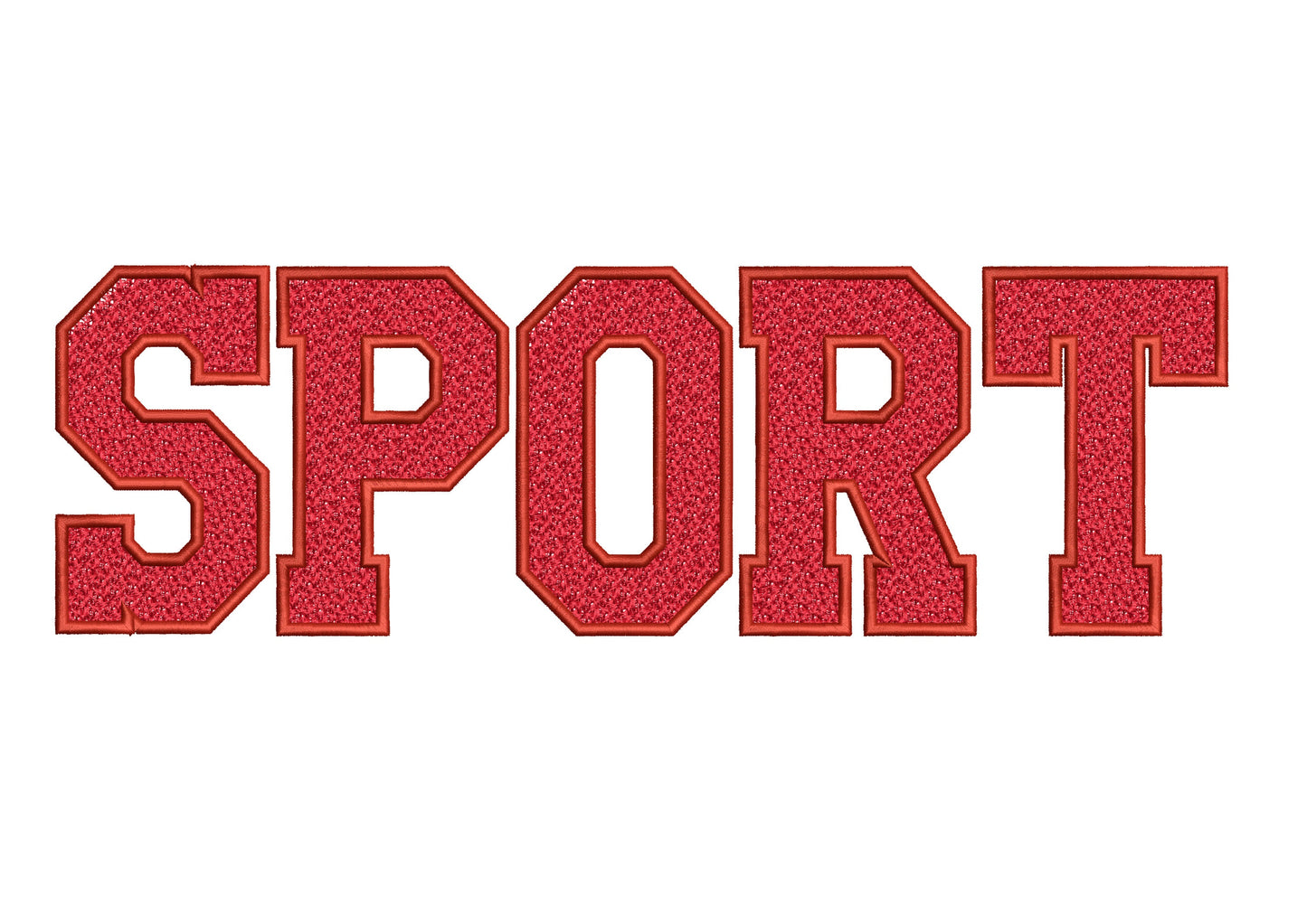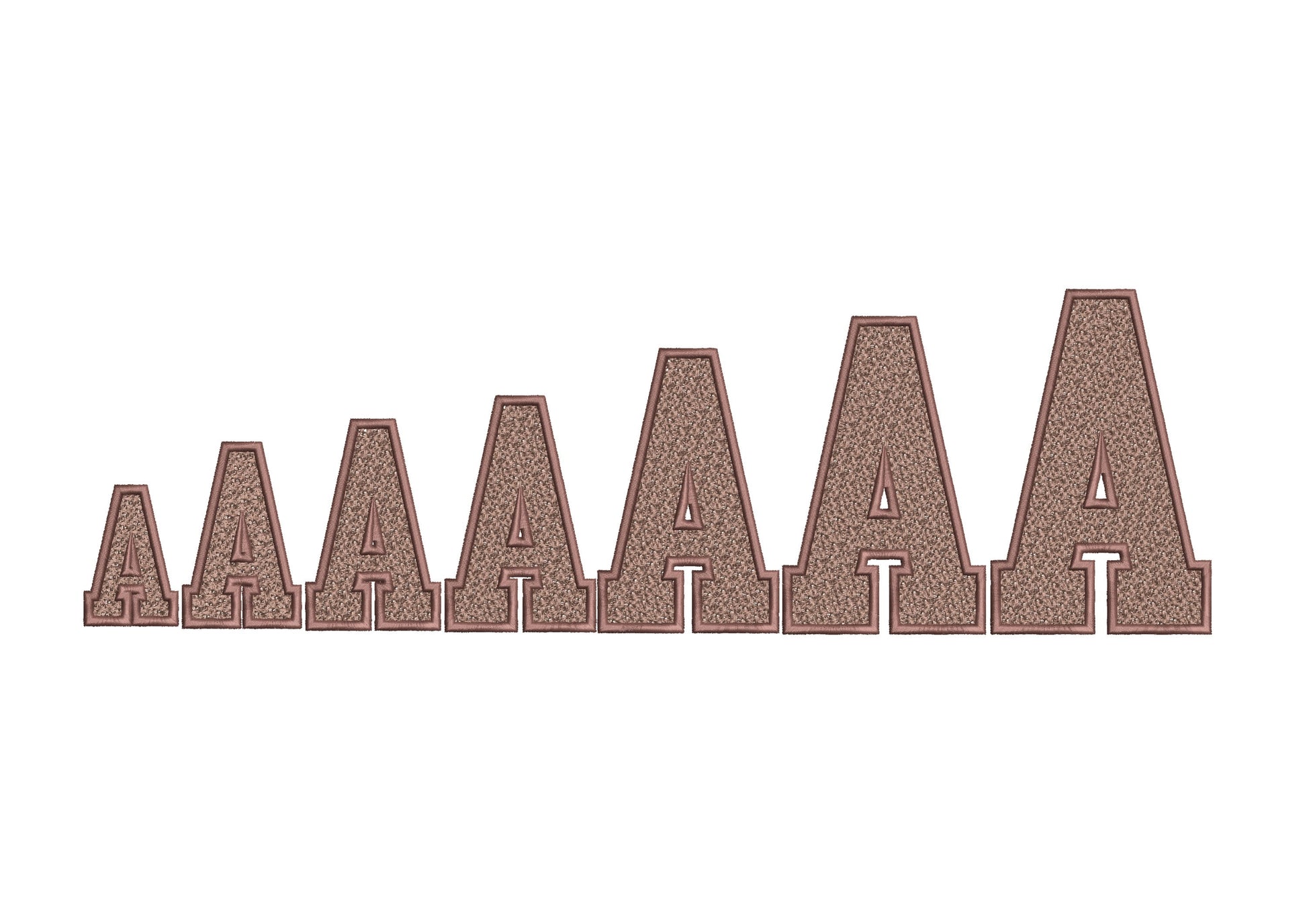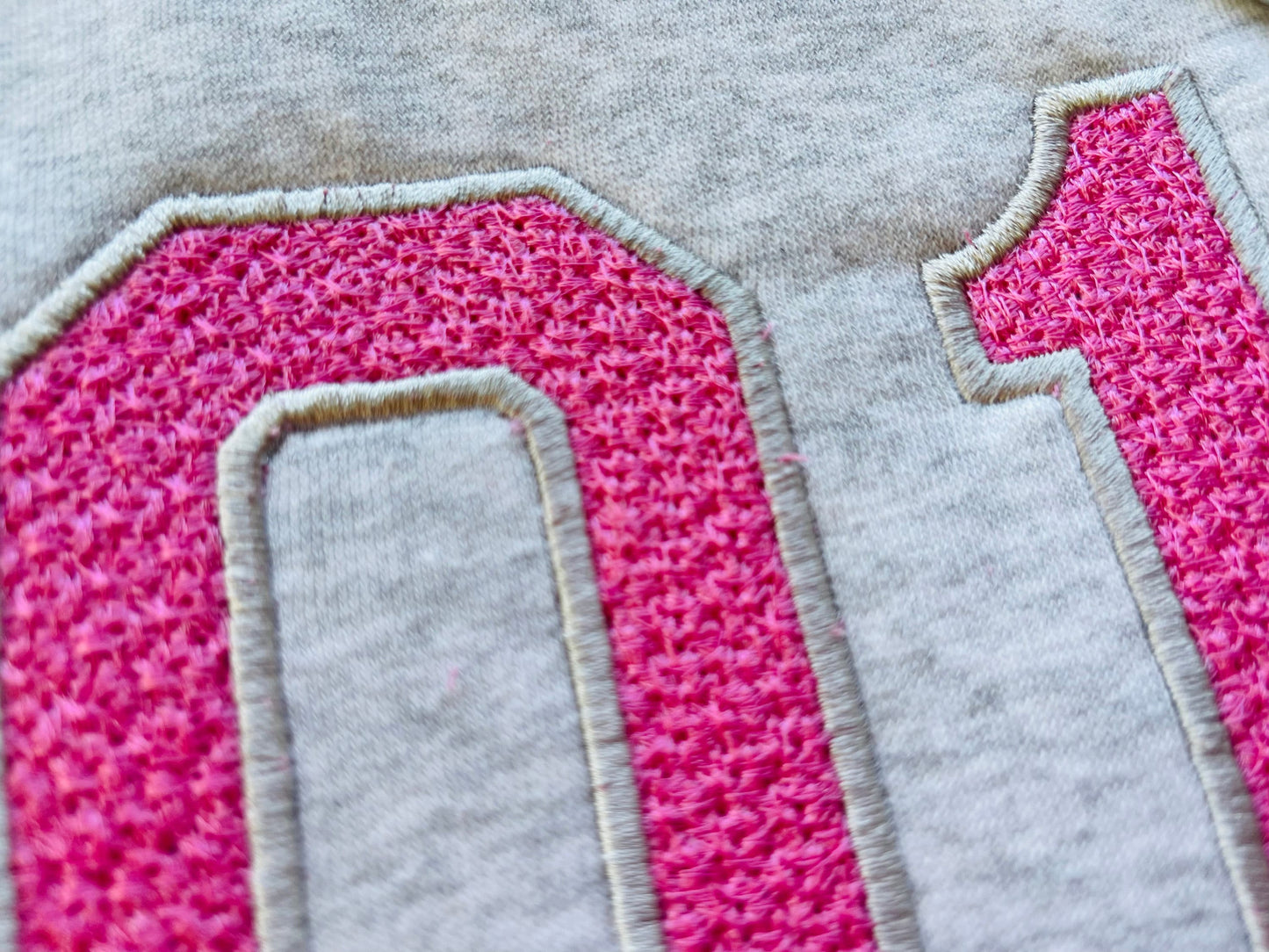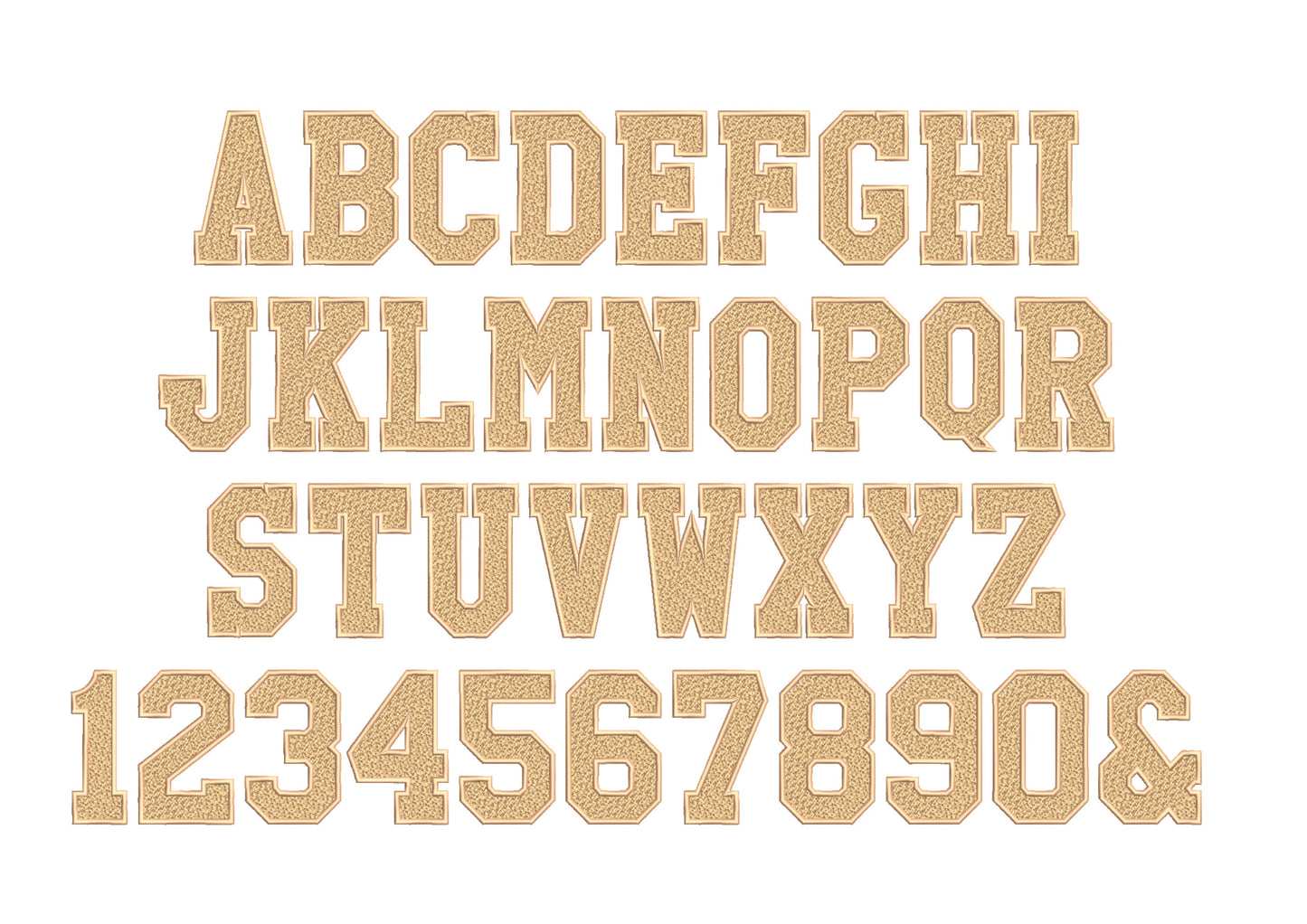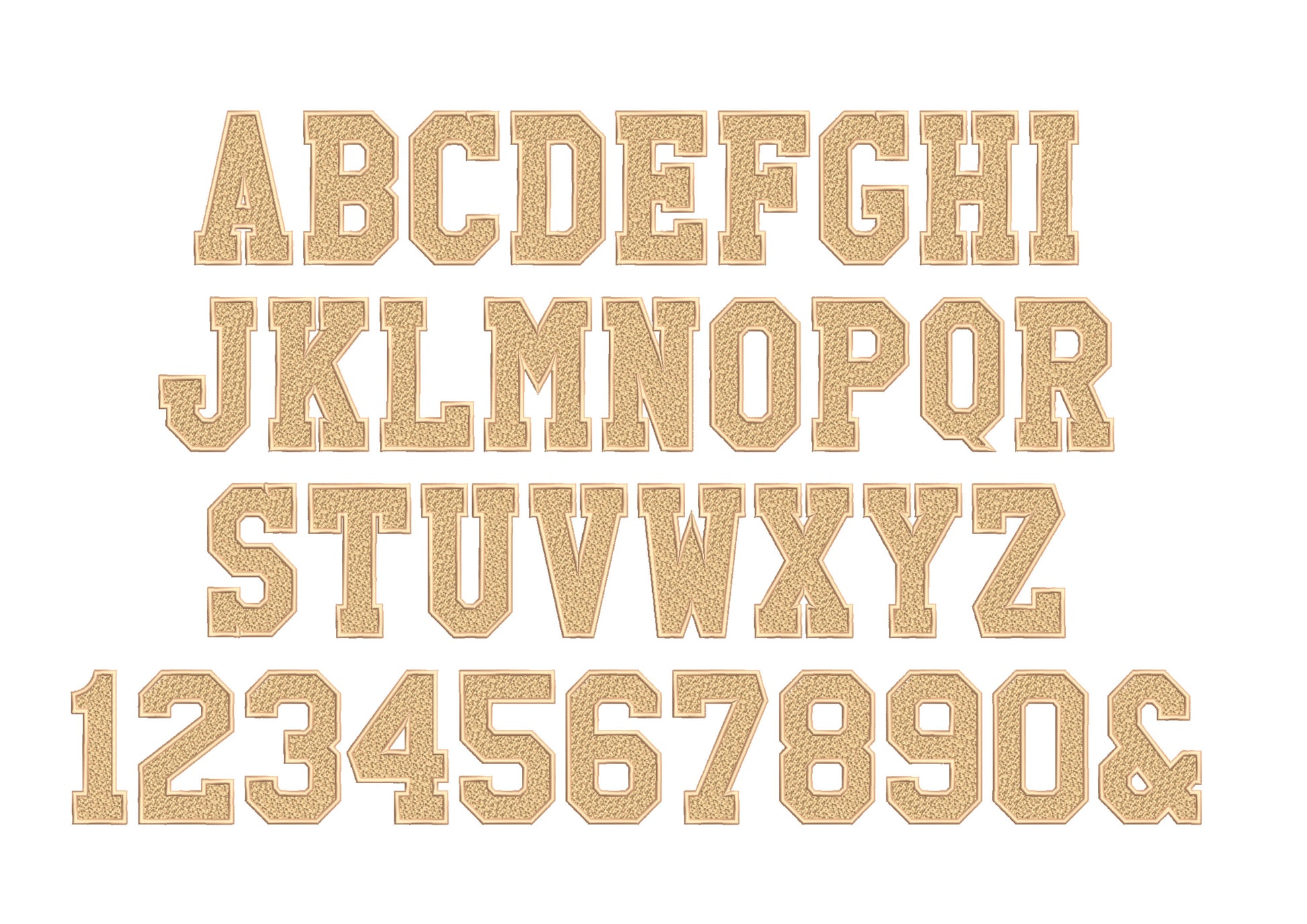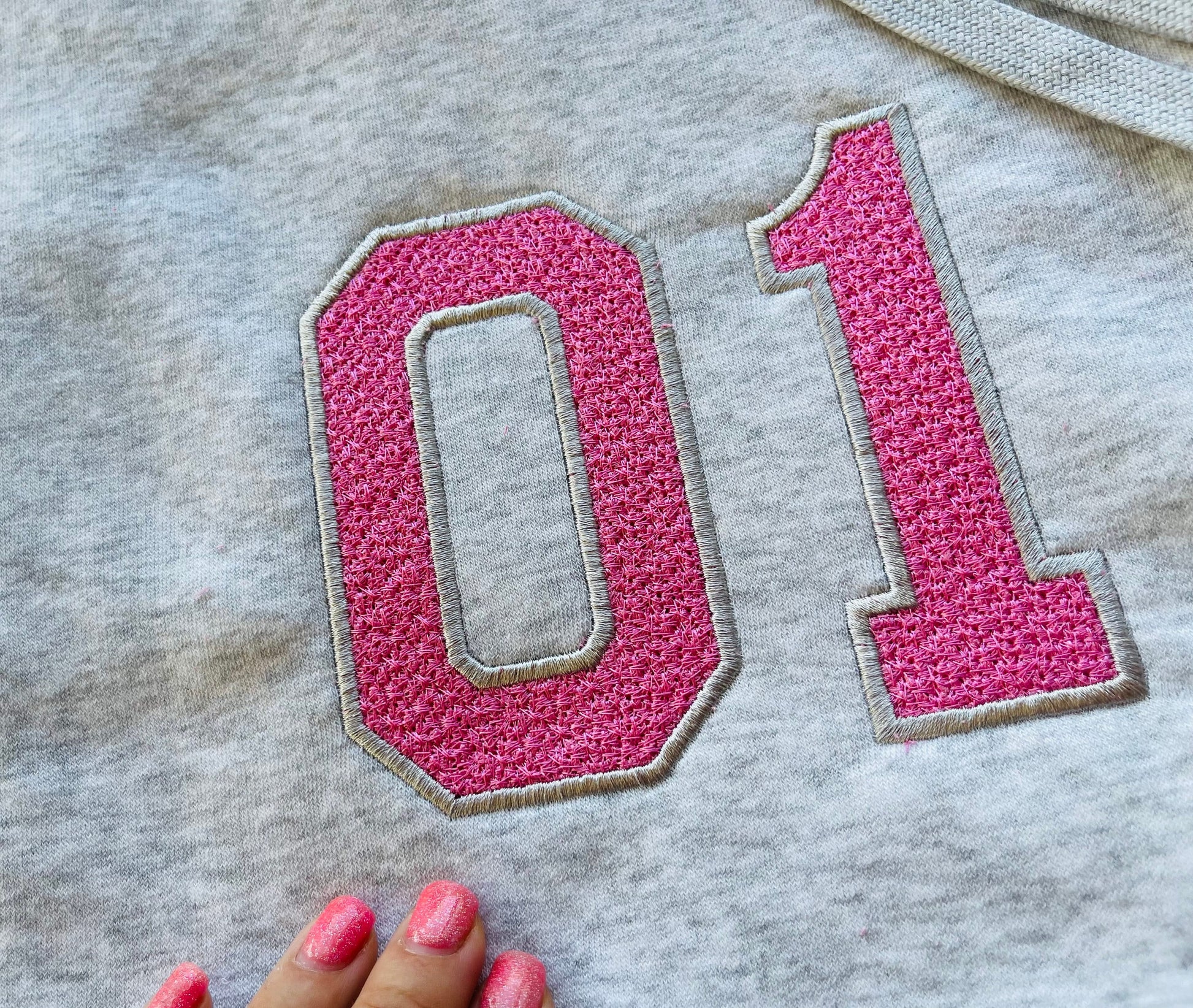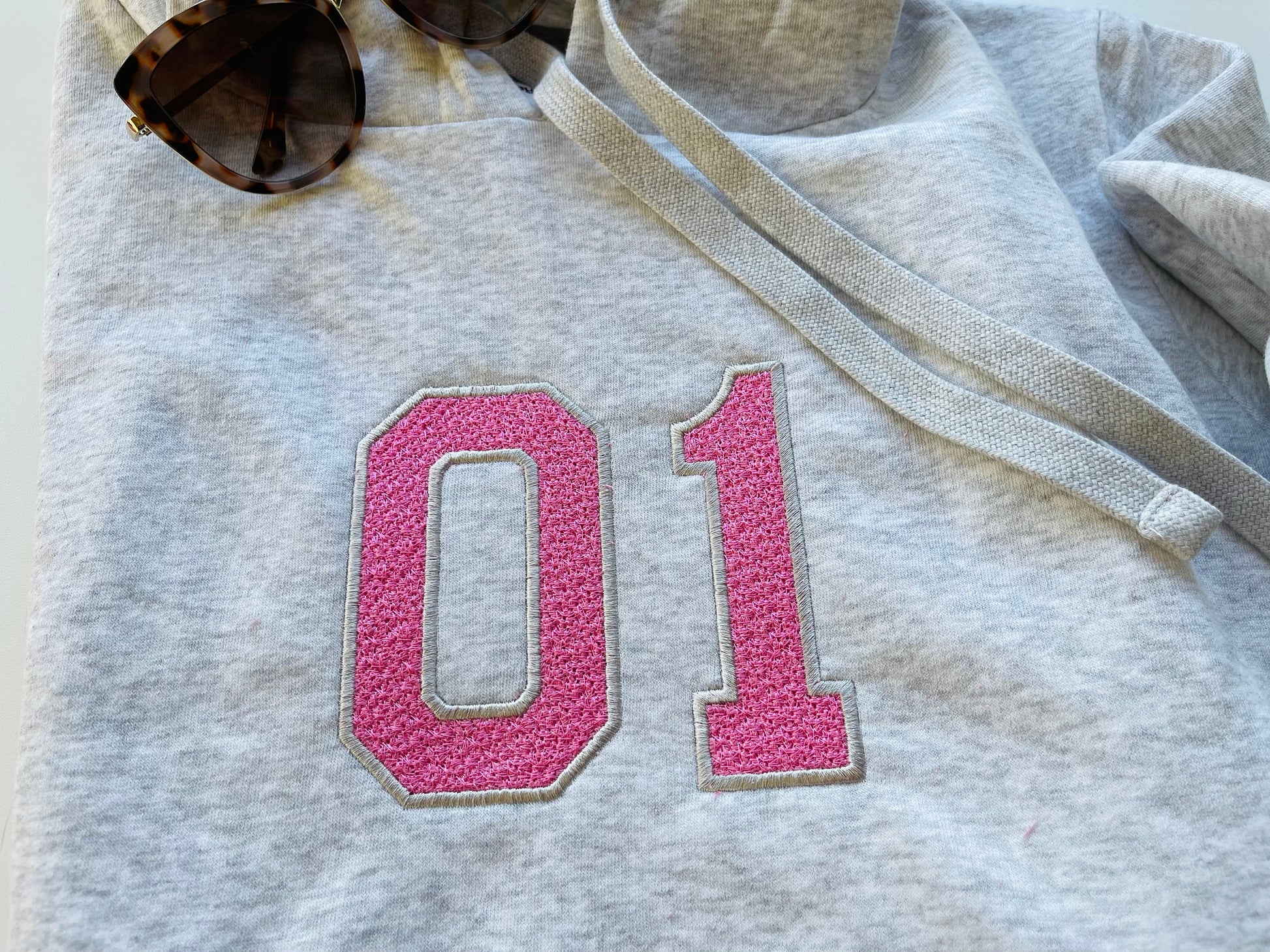
Faux Chenille Sport Block Font
Faux chenille sport block Font alphabet chenille Athletic Sport School Team Players alphabet machine embroidery designs from 2 thru 5.5" Faux Chenille Sport alphabet has upper case letters in assorted heights. It looks like chenille, load and stitch. Please, see the enclosed photos. It is recommended to lay same color piece of fabric behind to prevent the base fabric looking through.